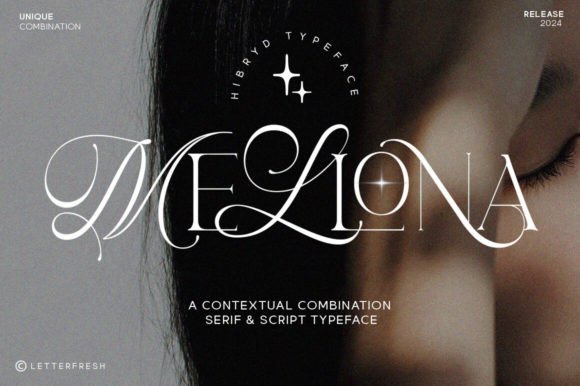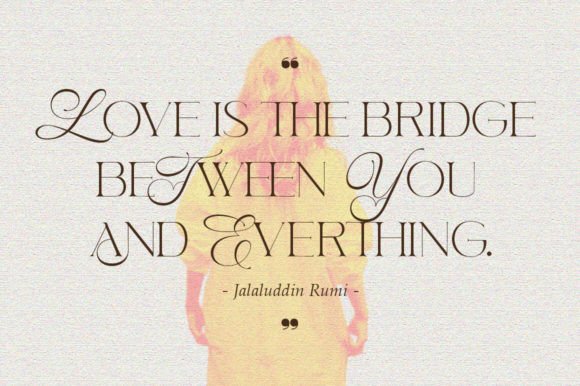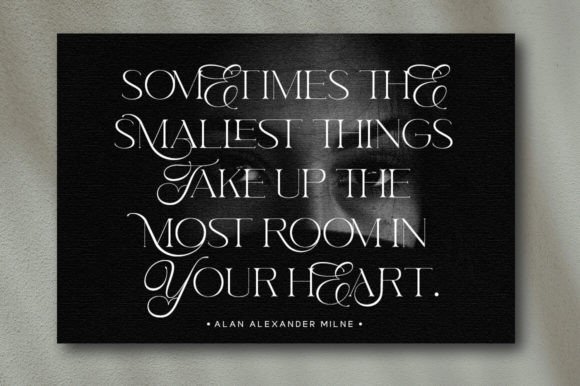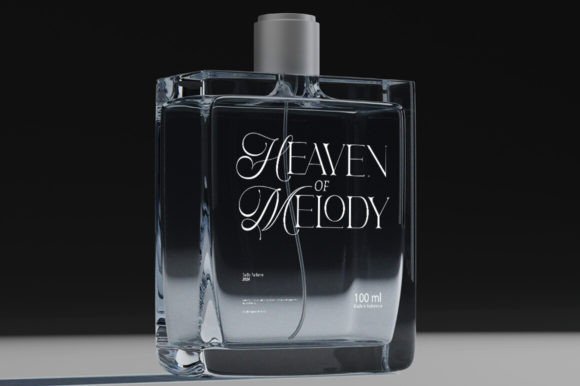
Mellona Font: Elegant Calligraphy Serif for Luxury Branding & Wedding Invitations
About the Mellona Font
Step up your design game with Mellona Font, a font that exudes confidence and style. Mellona is a stylish calligraphic serif font that embodies elegance and sophistication. Its graceful strokes and flowing curves evoke a sense of refinement and beauty, making it ideal for luxury branding, wedding invitations, and editorial design. Mellona adds a touch of class and sophistication to any project.
Mellona’s elegant curves shine in headlines, logos, and short-form text for luxury brands or projects requiring a sophisticated feel. It works exceptionally well for invitations, certificates, and high-end packaging where a sense of refined quality is paramount. However, its calligraphic nature makes it unsuitable for body text or UI elements; the intricate details become illegible at smaller sizes.
Pairing Mellona effectively requires considering its inherent elegance. A clean sans-serif like Montserrat or Lato provides a strong, modern counterpoint, while a simpler serif such as Garamond offers a more classic and harmonious combination. Avoid pairing it with overly playful or geometric fonts, which would clash with its refined aesthetic.
Mellona projects an aura of classic elegance and understated luxury. Its sophistication makes it perfect for brands conveying exclusivity and high quality, but its delicate nature limits its versatility.
Mellona Font Usage Examples
Mellona Font Example